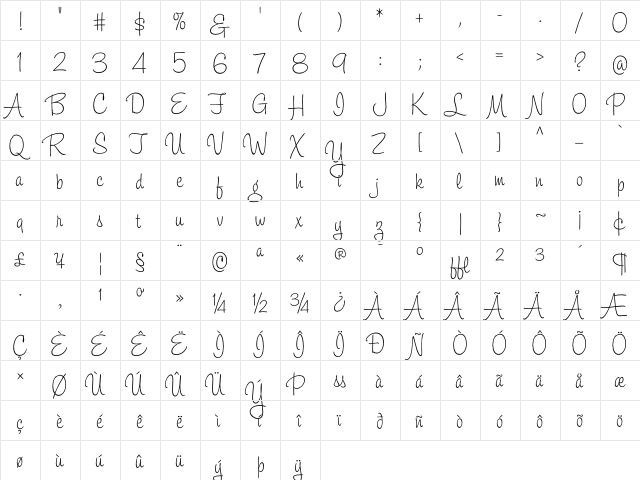
EdPS Script
| Style | Script |
Design Context for EdPS Typeface
EdPS flows with the natural rhythm of handwritten lettering, making it ideal for designs that call for warmth and personal expression.
Font Pairing: Combine EdPS with a simple geometric sans for maximum contrast — the tension between flowing curves and clean structure is a classic typographic pairing.
Pro Tip: Pair EdPS with a clean sans-serif for supporting text. The contrast between fluid script and geometric structure creates an elegant typographic hierarchy.